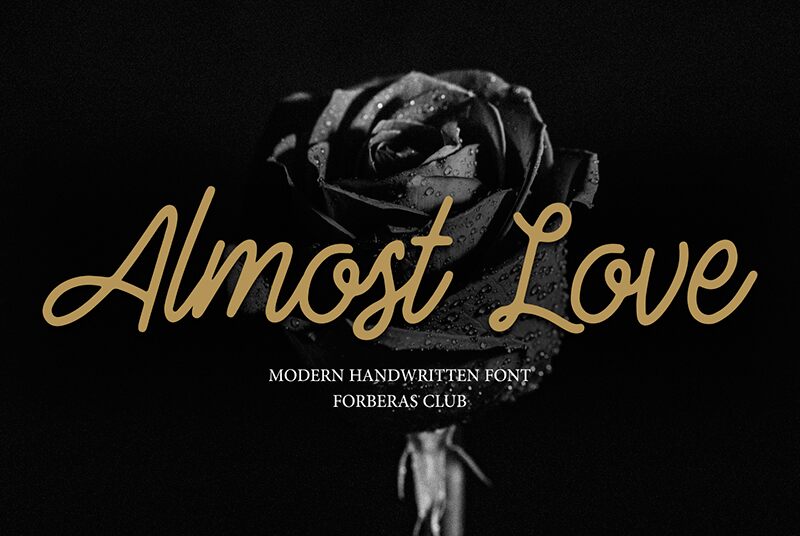
Almost Love Demo Regular is a casual handwritten script font from Forberas Club. Its light weight makes it suitable for logos, wedding stationery, and other creative projects.